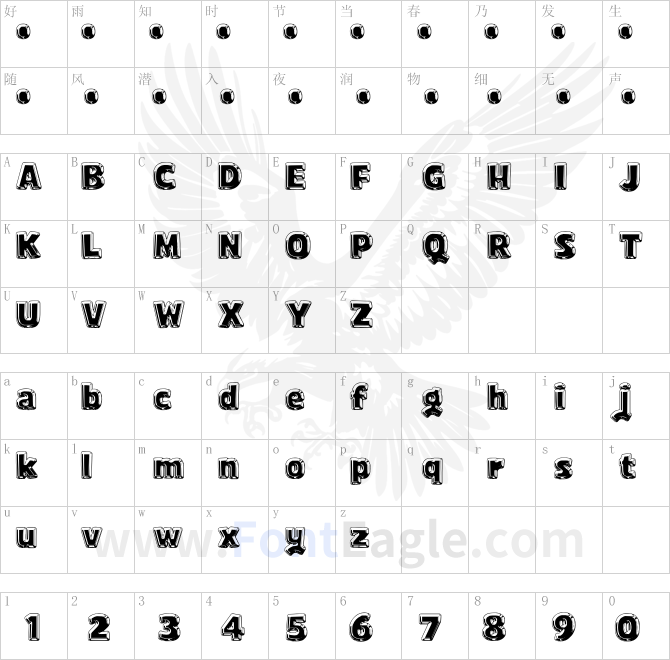
- Font name:TownSquare ‘Deluxe’
- Font Subfamily ID:HT: TownSquare ‘Deluxe’: 2004
- Font Full Name:TownSquare ‘Deluxe’
- Font Version:1.0; 4-12-2004
- Postscript:TownSquare’Deluxe’